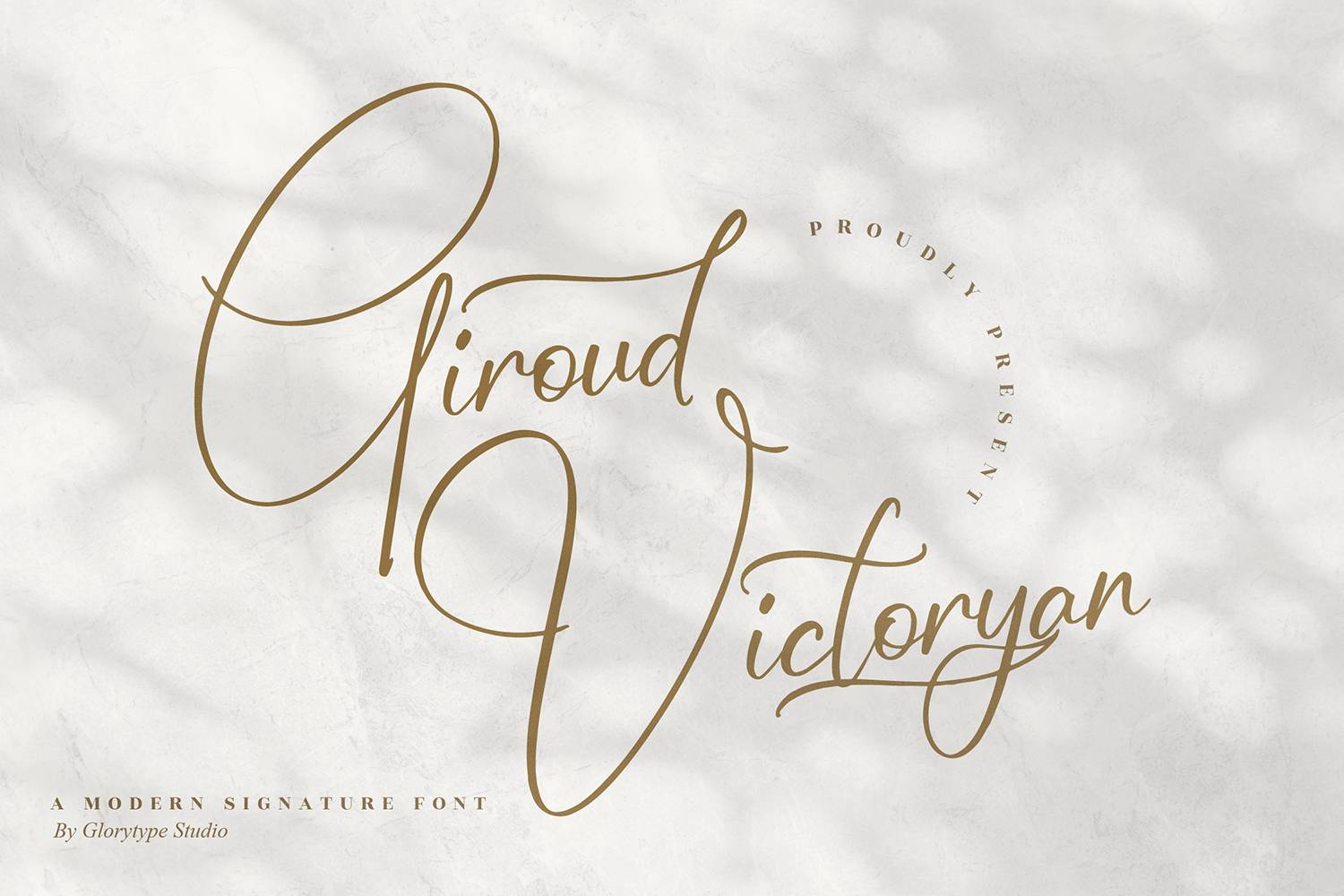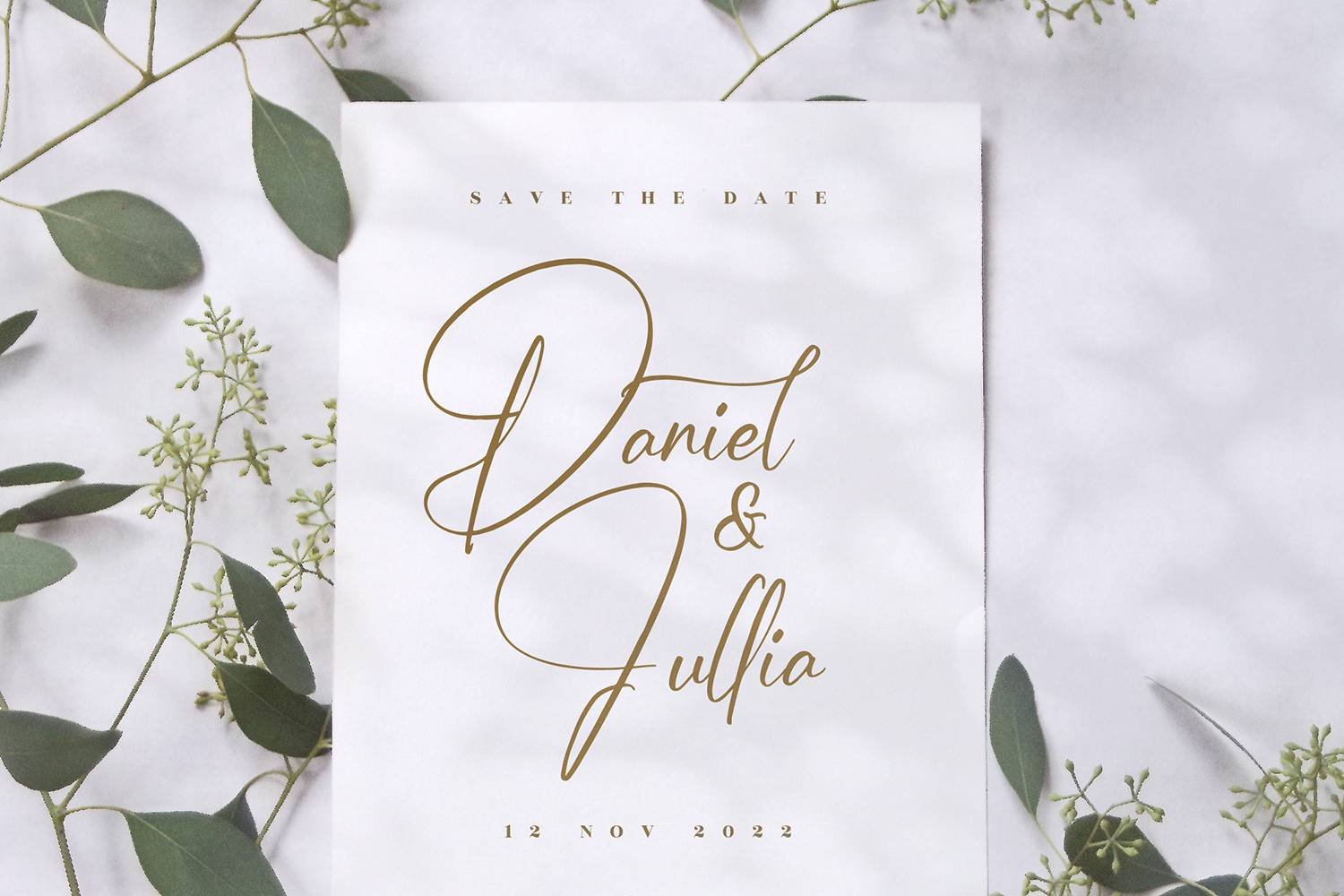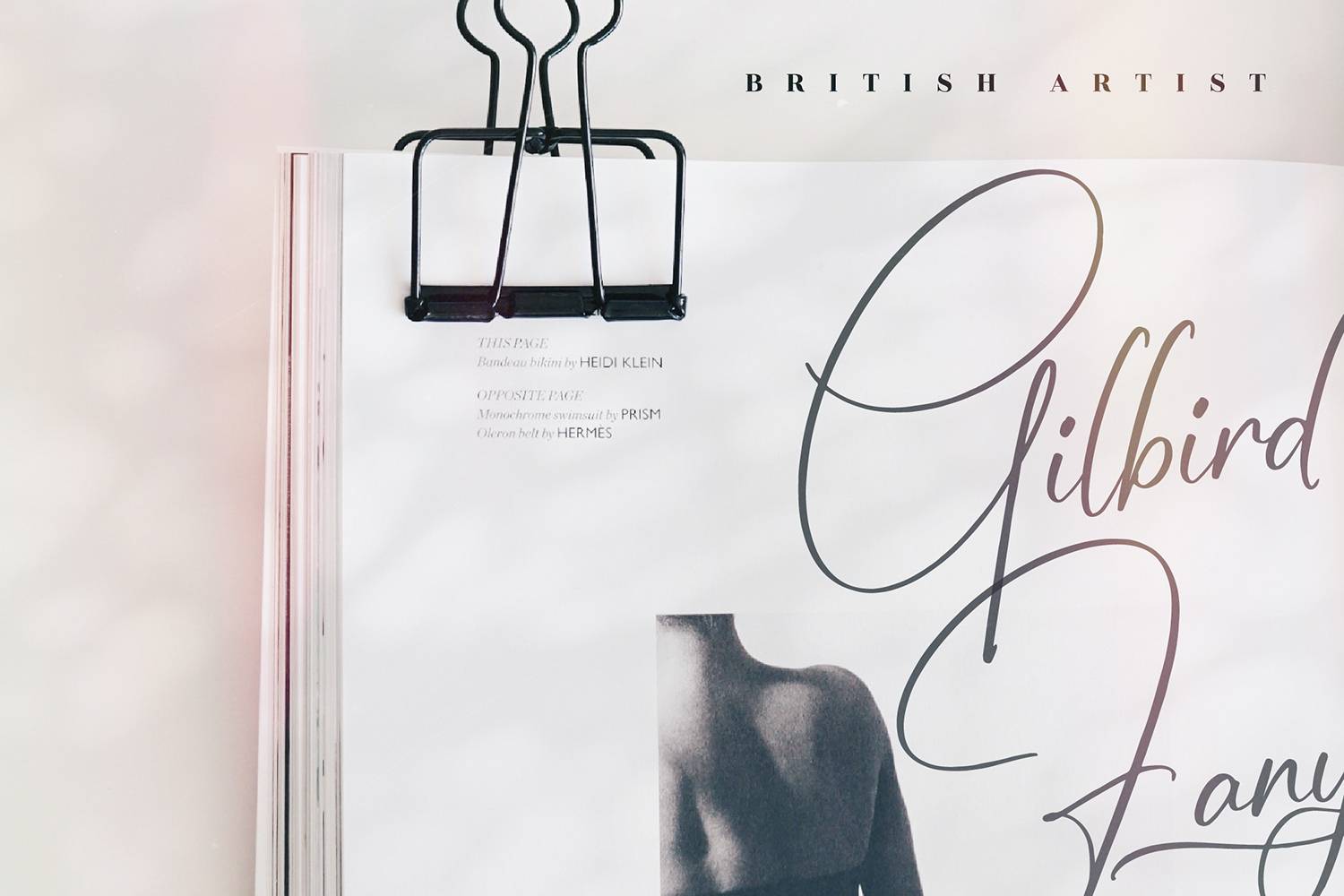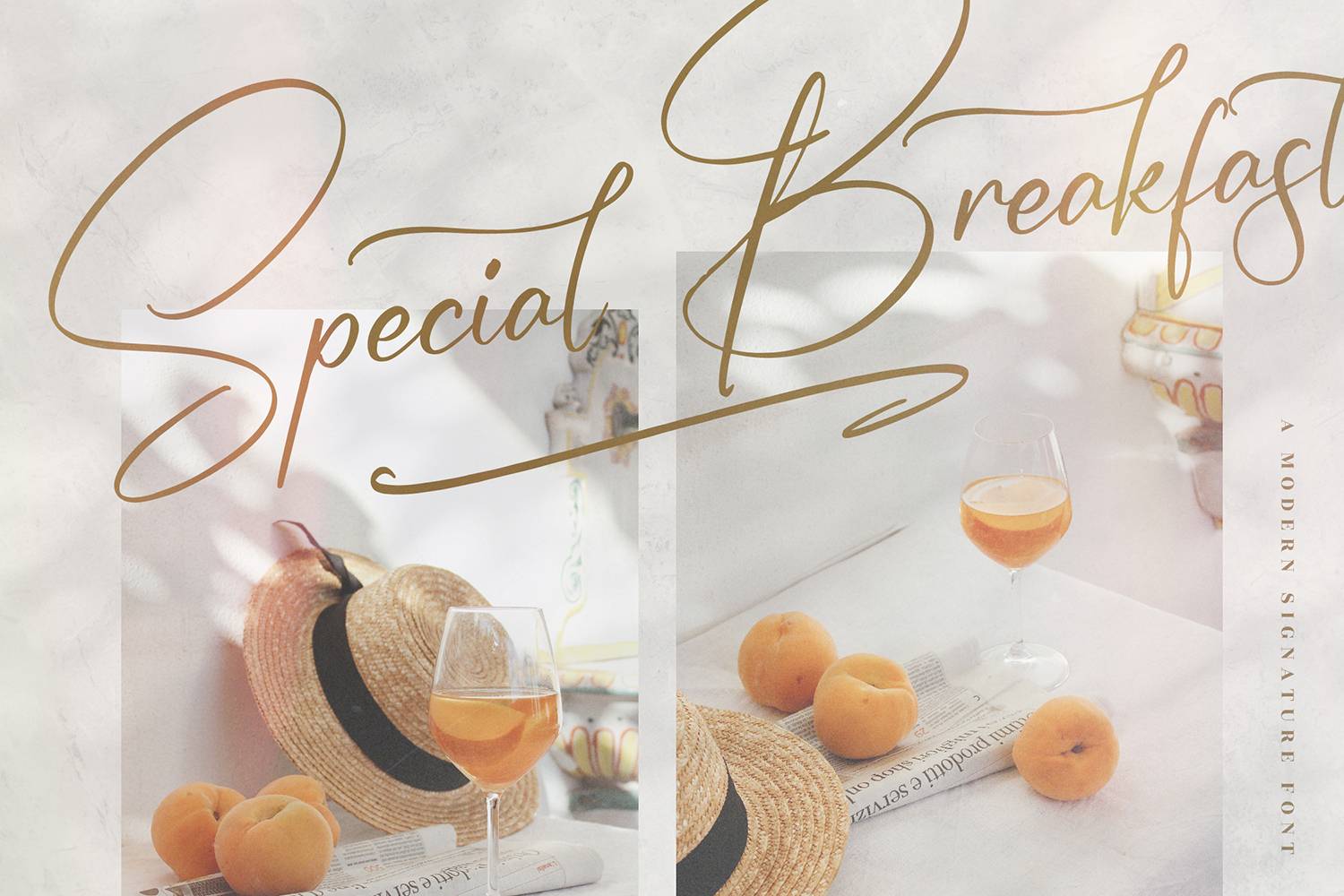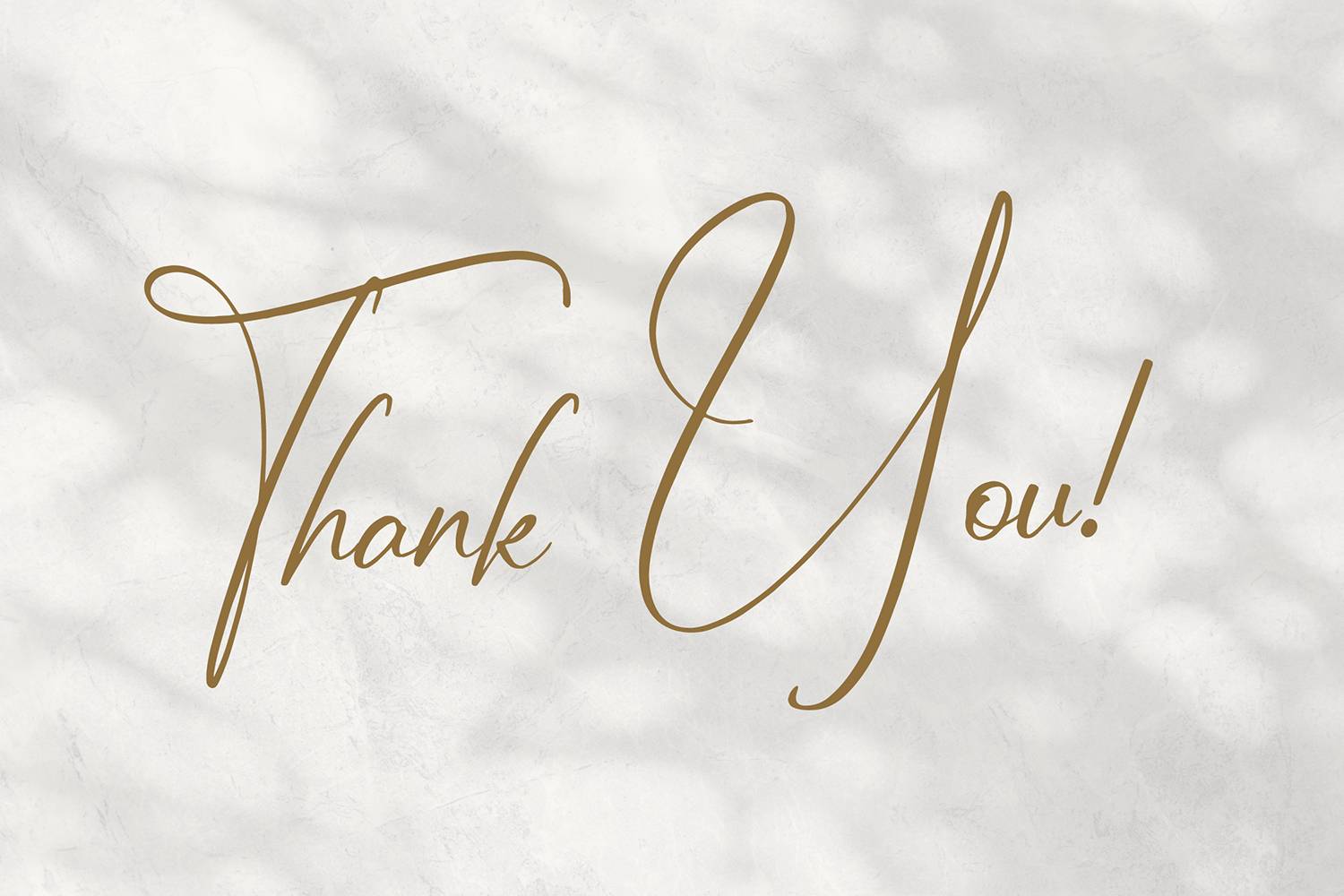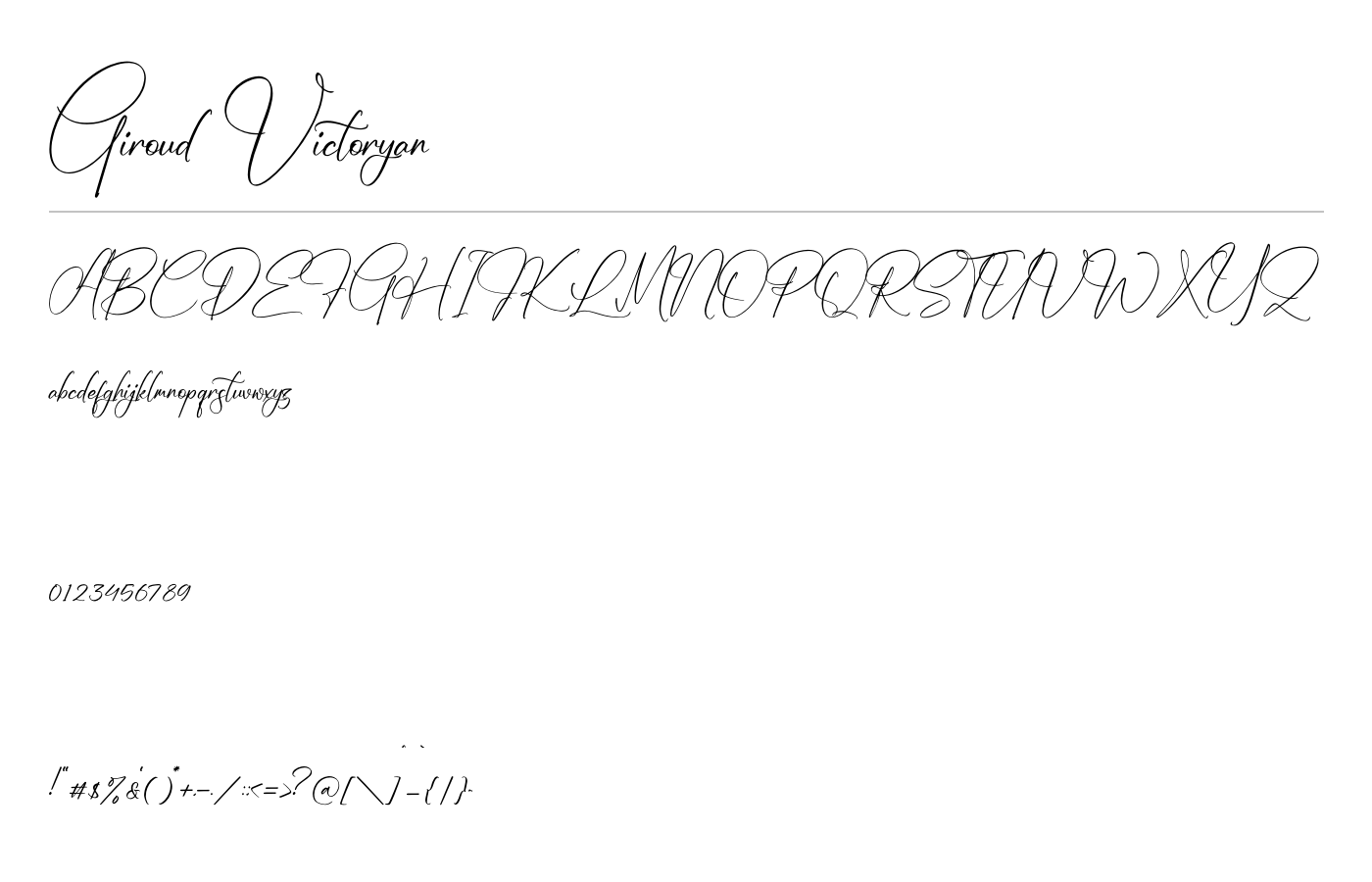
Giroud Victoryan is an elegant, delicate script font with a refined, handwritten feel characterized by its thin, flowing strokes and graceful loops. Its narrow width and high contrast between fine lines create a sophisticated, artistic style perfect for luxury branding, wedding invitations, or high-end editorial use. This font conveys a sense of romance and refinement, making it ideal for designs that seek to evoke elegance and personal expression.
Giroud Victoryan Font
About Giroud Victoryan Font